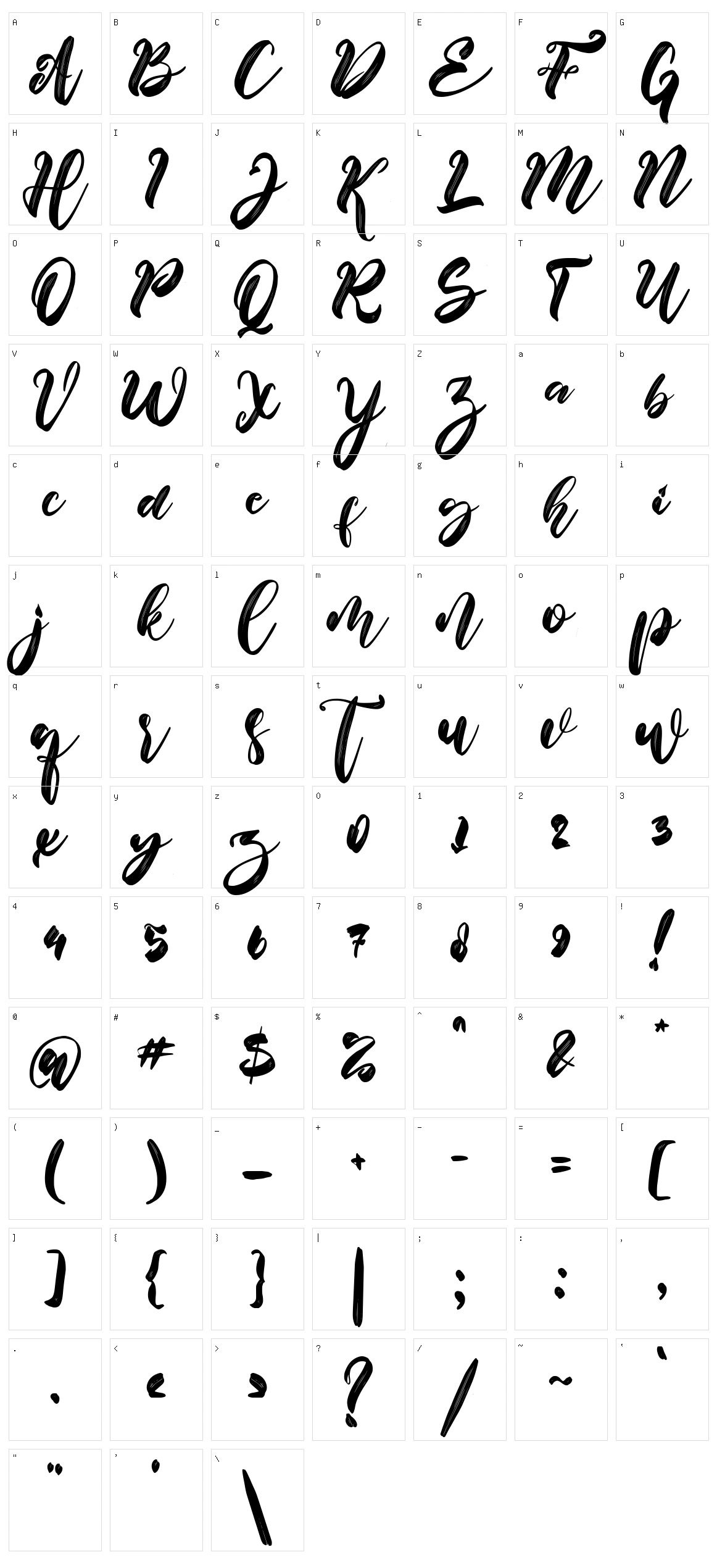
The free font Valentine Brilliant is carefully designed by Abraham Type (AldeDesign Studio), showcasing a thoughtful balance of creativity and usability and falls under the Script font style. When you download the ZIP file, it contains only 295.2 KB of font files, making it lightweight and quick to download. Please review the license details below to understand permitted usage and distribution rights. If license information is not available, we recommend using this font for personal projects only or contacting the author directly for commercial usage permissions.